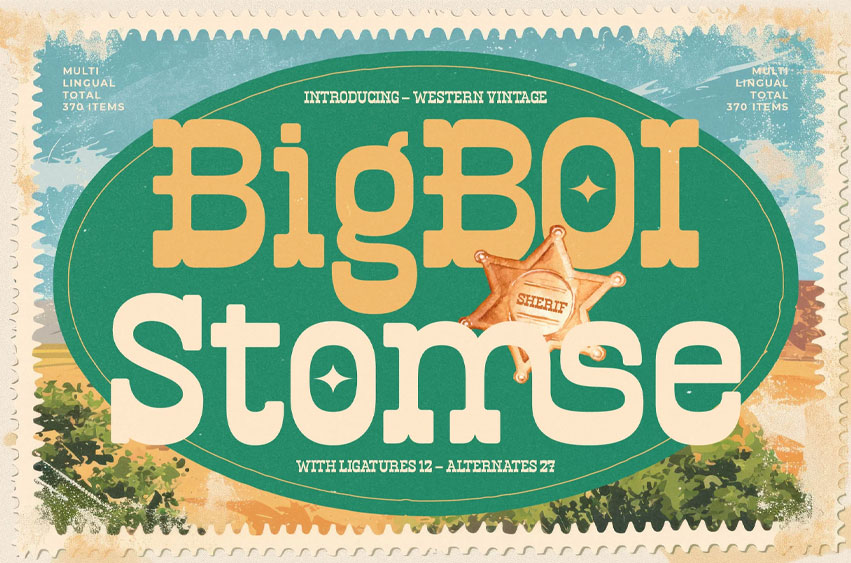
Bigboi Stomse Font
Bigboi Stomse Font is a western-vintage display font inspired by old cowboy posters, sheriff badges, and rugged frontier landscapes. Its chunky, friendly character shapes bring a warm retro personality that fits perfectly for food branding, café logos, packaging, posters, merchandise, and vintage-style signage.
With alternates and ligatures included, this font gives you flexibility to create standout visuals with a nostalgic Western charm.